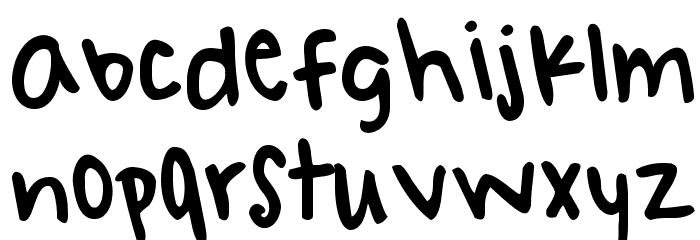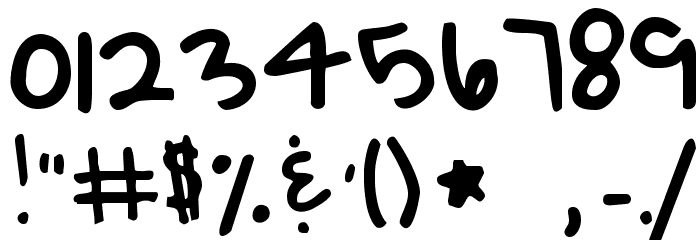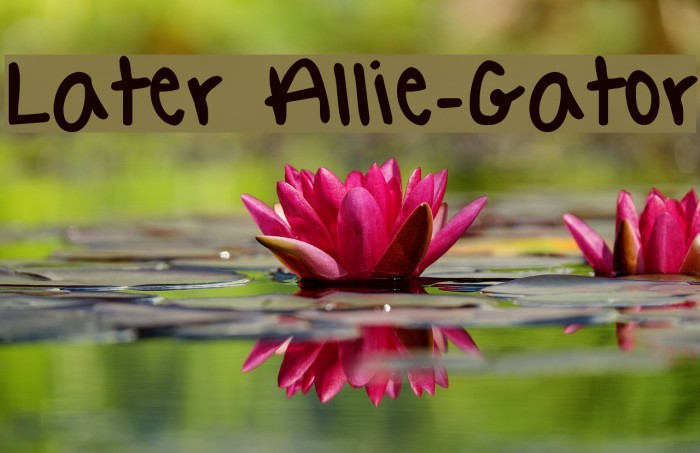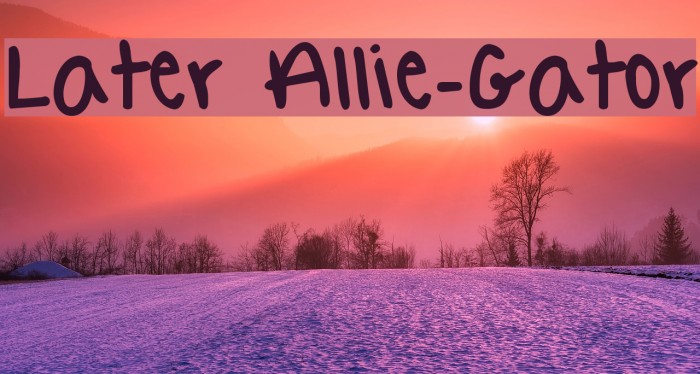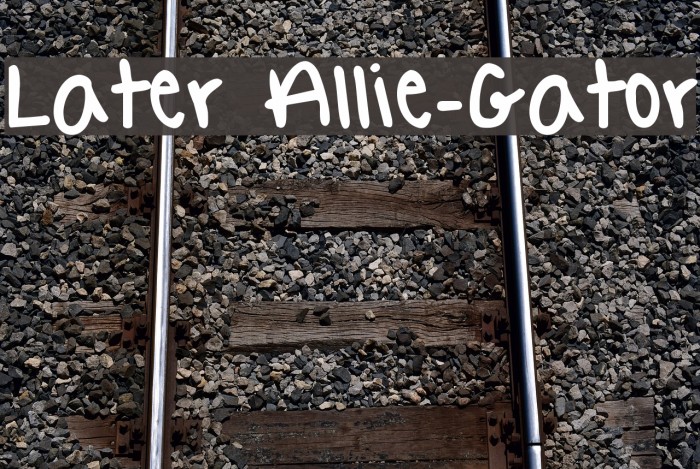
Later Allie-Gator Font
This playful and whimsical font features a handwritten style with a casual, friendly appearance. The letters are bold and rounded, giving them a soft and approachable feel. The uppercase and lowercase characters maintain a consistent style, with slight variations that add to the handwritten charm. Numbers and special characters are included, matching the overall aesthetic with their rounded and informal design. This font exudes a sense of fun and creativity, making it perfect for projects that require a personal touch.
A playful, handwritten font with a bold, rounded style.
- Proposed Projects: Ideal for children's books, greeting cards, playful branding, and informal invitations.
- Overall Style: Playful
- Use Case: Headlines, Logos, Informal Text